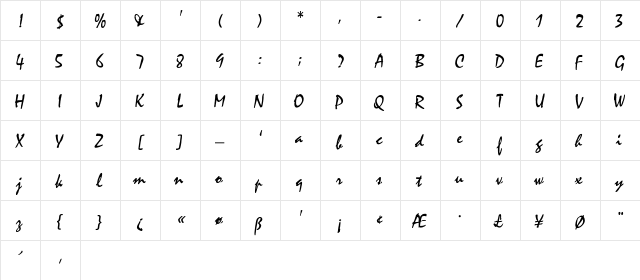
Soothsayer Light Regular
Design Context for Soothsayer Light Typeface
Soothsayer Light is a composed and adaptable typeface that performs quietly and consistently across a wide range of design contexts. The delicate stroke weight brings airiness and refinement to layouts.